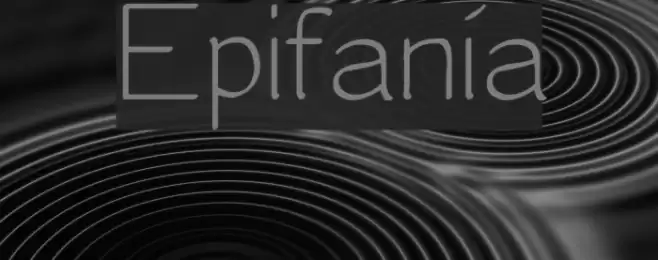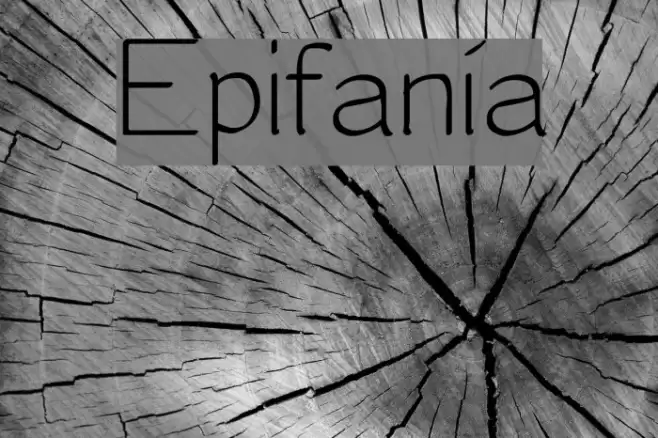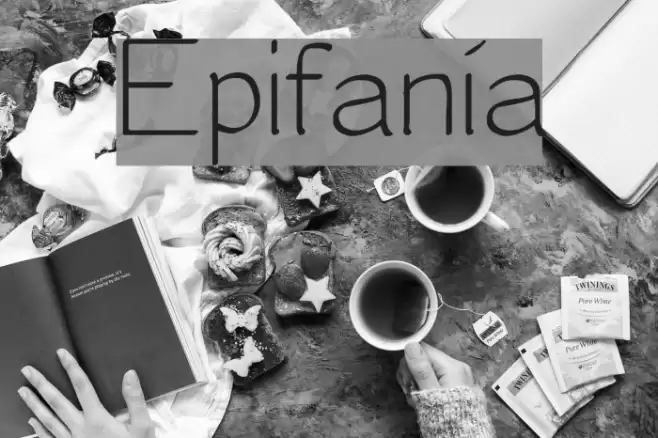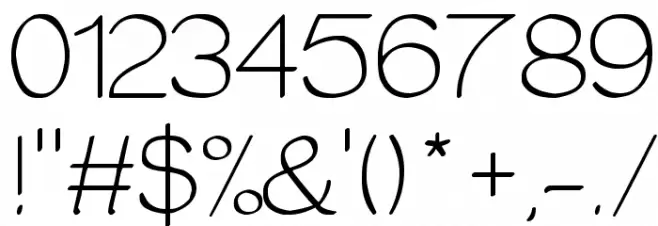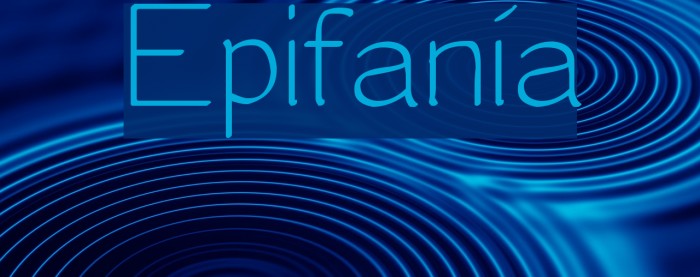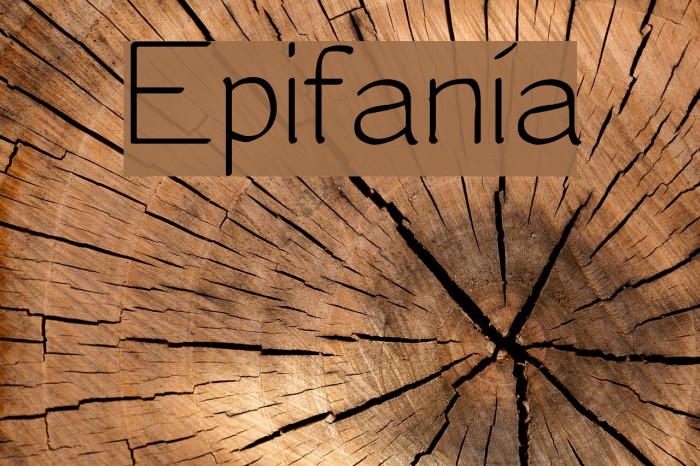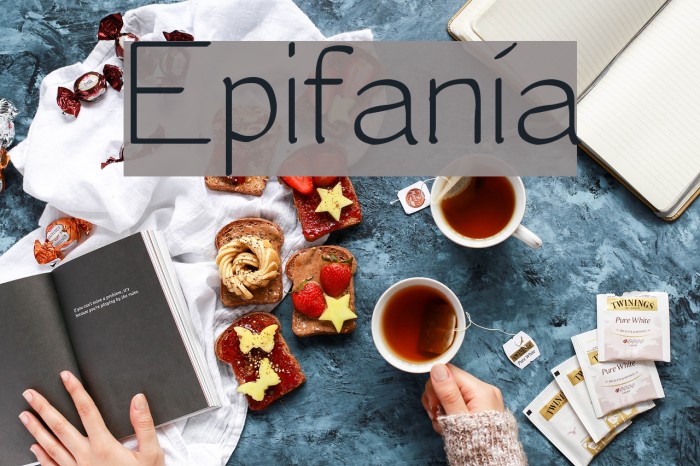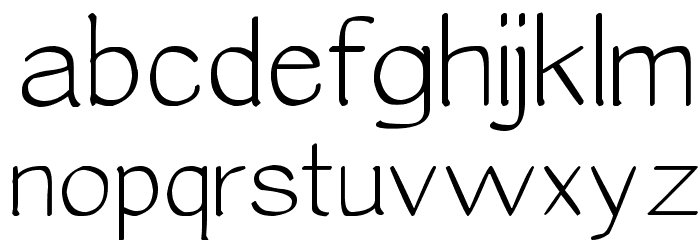
Epifanía Font
Epifanía Description
This font features a clean and modern sans-serif design with a geometric structure. The characters are evenly spaced, providing a balanced and harmonious appearance. The uppercase letters are bold and assertive, while the lowercase letters maintain a friendly and approachable feel. Numbers are clear and legible, making them suitable for both digital and print formats. The special characters are well-integrated, ensuring consistency across all glyphs. This font's simplicity and clarity make it versatile for various design applications.
A modern, geometric sans-serif font with balanced spacing and clear legibility from Uncategorized fonts.
- Proposed Projects: Ideal for branding, web design, editorial layouts, and user interfaces due to its clean and modern look.